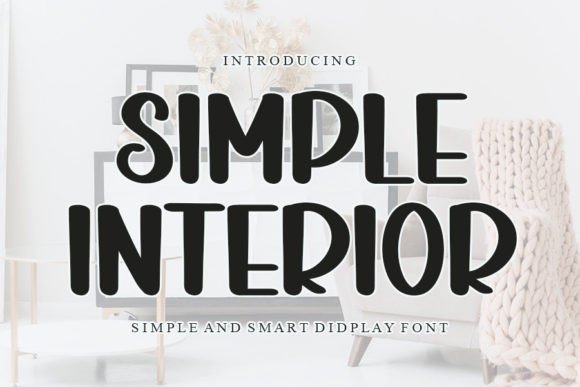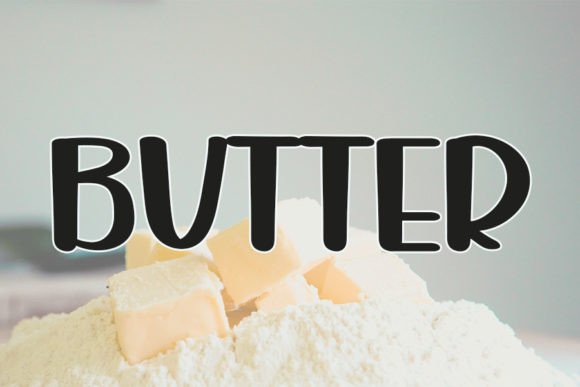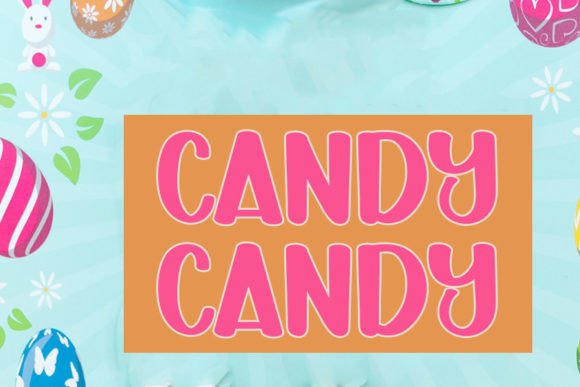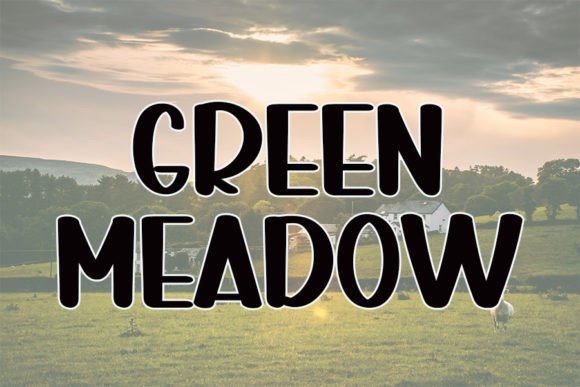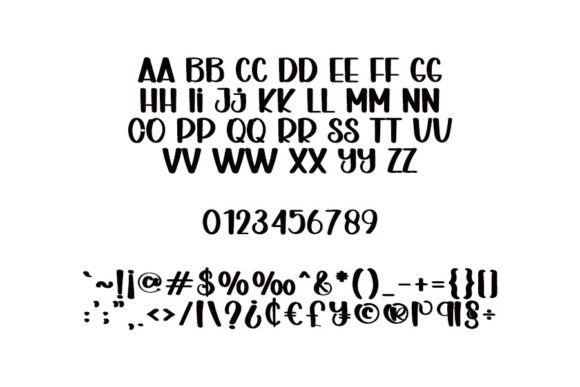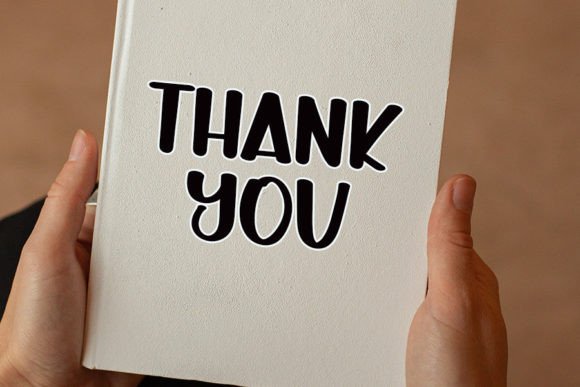
Simple Interior Font
What Is Simple Interior Font?
Simple Interior is a trendy handwritten font that combines classic calligraphy inspiration with a fresh, contemporary look. With its balanced shapes and graceful strokes, this font brings elegance and sophistication to every design. Because it’s crafted with attention to detail, Simple Interior is ideal for both personal and commercial projects.
You’ll love how effortlessly it transforms ideas into stylish and polished designs.
Simple Interior is a highly versatile typeface that fits many design scenarios. For example, it’s perfect for wedding invitations. Whether you’re creating formal event stationery or casual save-the-date cards, this font adds a refined and timeless touch.
It also works beautifully for logos and branding. If you want your business to appear sophisticated and approachable, Simple Interior helps you build a memorable brand identity.
Additionally, this font is an excellent choice for social media graphics. Whether you’re posting quotes, special offers, or announcements, Simple Interior gives your content a modern and elegant feel.
You can also use it on product packaging and labels to make your designs stand out. From event signage and greeting cards to personalized gifts and marketing materials, this font adapts seamlessly to any project you envision.
There are many reasons to include Simple Interior in your font collection. First, it maintains excellent legibility at all sizes. Whether you’re using it for large headlines or smaller captions, each letter remains crisp and clear.
Additionally, Simple Interior pairs well with minimalist serif or sans-serif fonts, helping you create professional and cohesive layouts easily.
Designers appreciate how polished it looks immediately, saving time while achieving premium results.
Simple Interior Font brings sophistication, clarity, and timeless style to any project. For example, if you want your designs to feel polished and modern, this font makes it easy.
Even minimalist layouts come alive with Simple Interior’s elegant curves and balanced details. Whether you’re creating branding materials, packaging, or social media content, your work will look cohesive and refined.
Using a high-quality handwritten font also demonstrates your dedication to great design, helping build trust and leave a strong impression.
Simple Interior Font is more than just a typeface—it’s a creative tool that adds elegance, style, and clarity to every project. From wedding invitations and branding to packaging and digital graphics, this font adapts effortlessly and elevates any design.